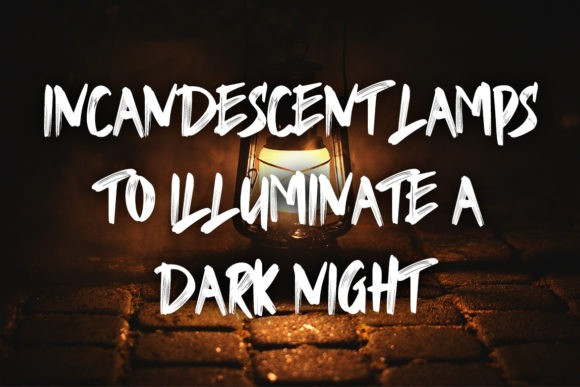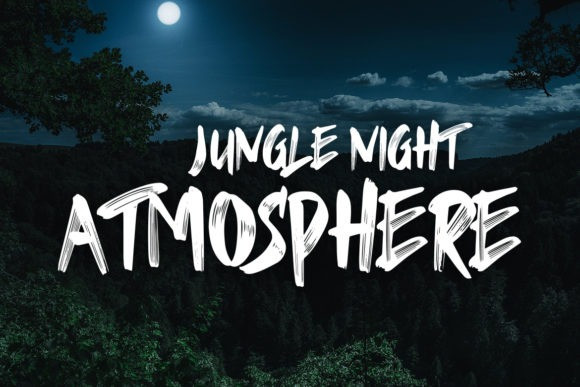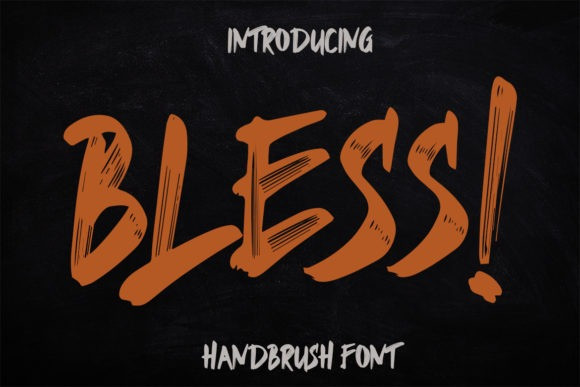
Bless Brush Font
Bless Brush Font is a brush display font. Clean and a little bit quirky, this font is the perfect fit for all of your logos, branding, social media, and crafty DIY projects.